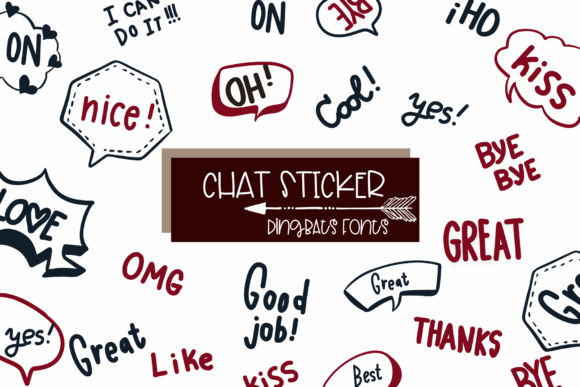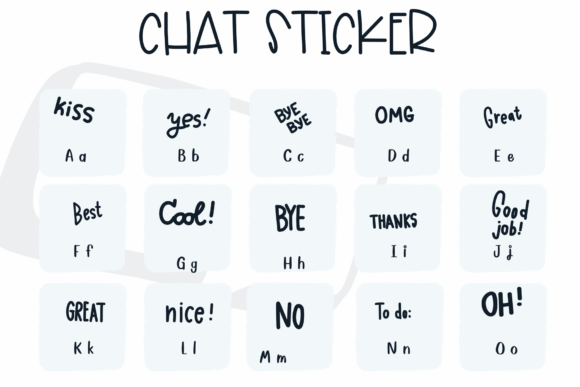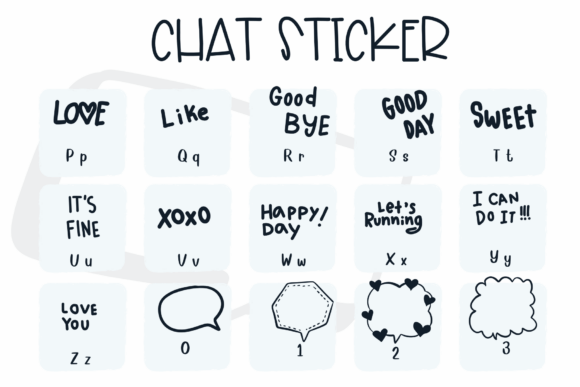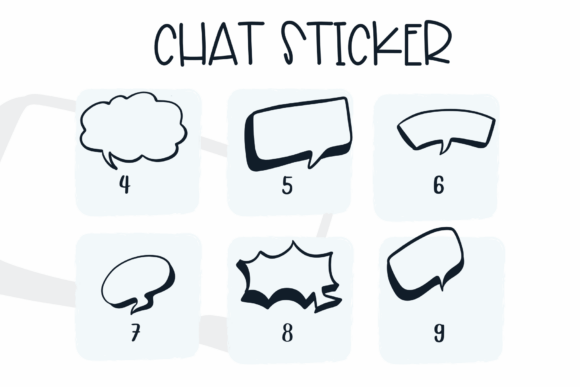
Chat Sticker Font
About the Chat Sticker Font
Elevate your designs with Chat Sticker Font, a font that combines sophistication with readability. Chat sticker is a dingbats font with a sketched style. This font can enhance your creative projects such as wedding invitations, DIY, crafts, decorations, logos, and many other creative ideas.
Chat Sticker Font Usage Examples
Chat Sticker Font Example